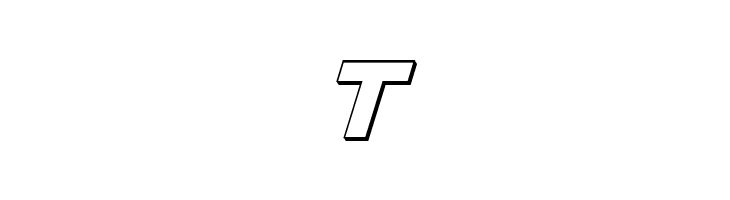
A bold, 3D italic font with outlined characters and a futuristic style.
A bold, 3D geometric font with a modern, futuristic style.
A bold, italicized font with outlined characters for a modern and dynamic look.